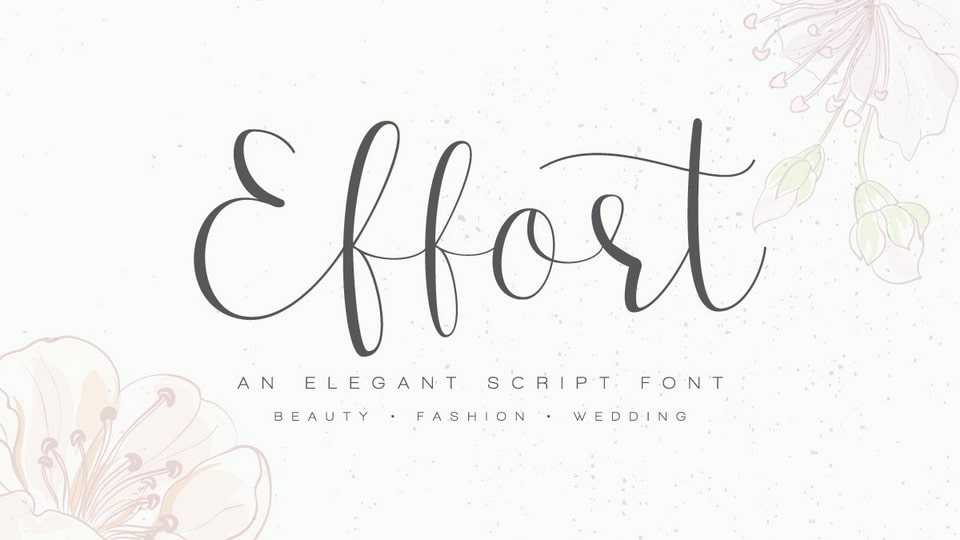
Download Effort font, a modern calligraphy typeface with handwritten, modern, sophisticated flows. It is perfect for branding, wedding invitations and cards.